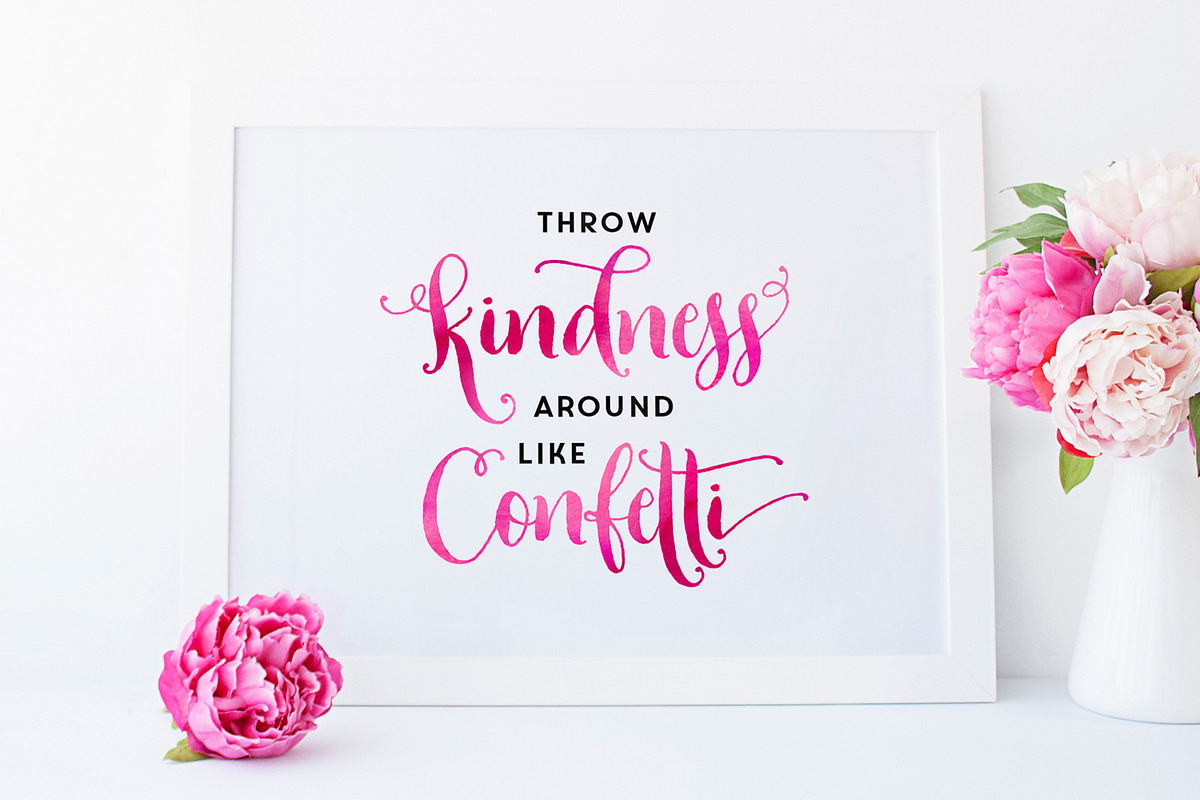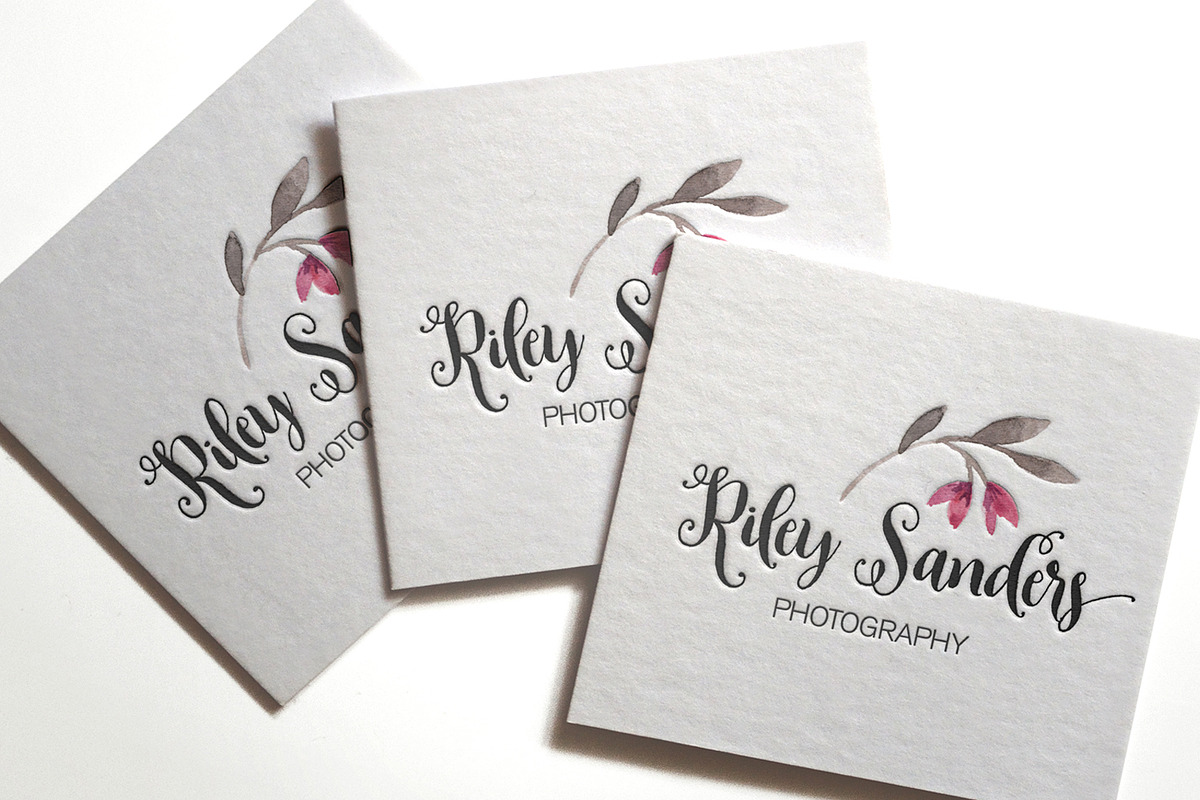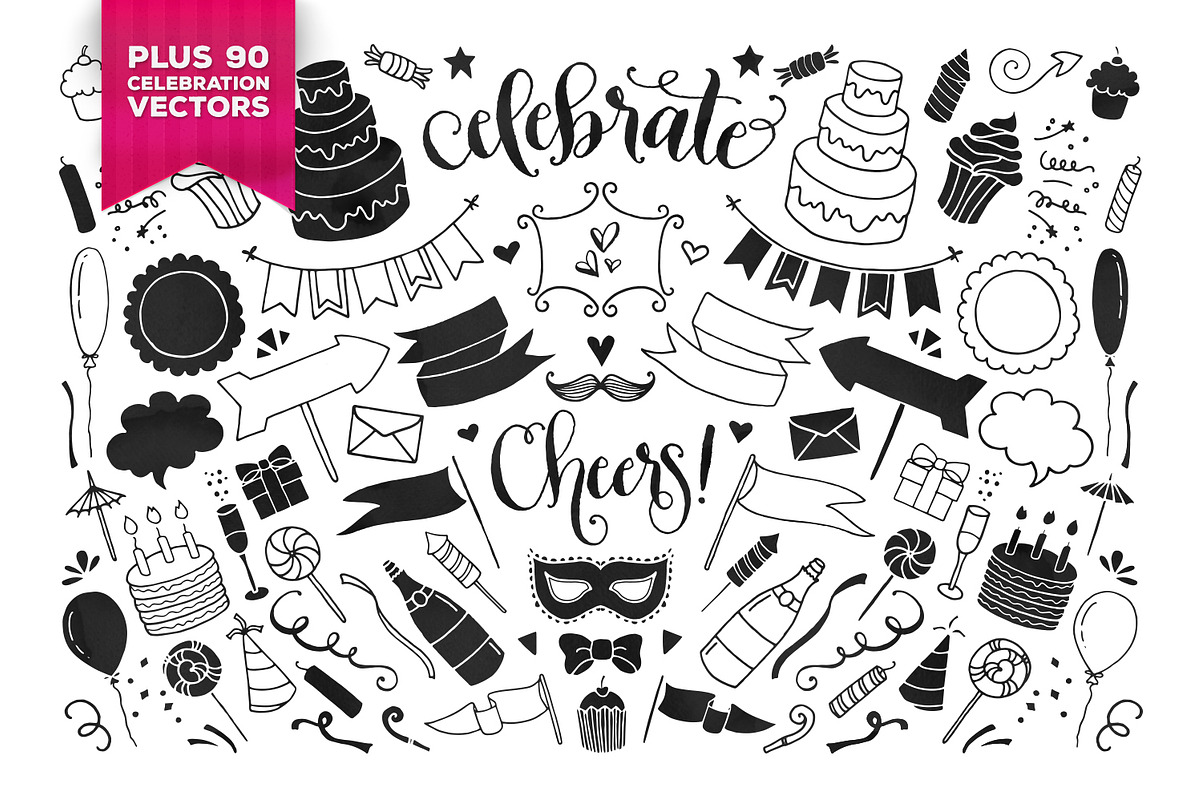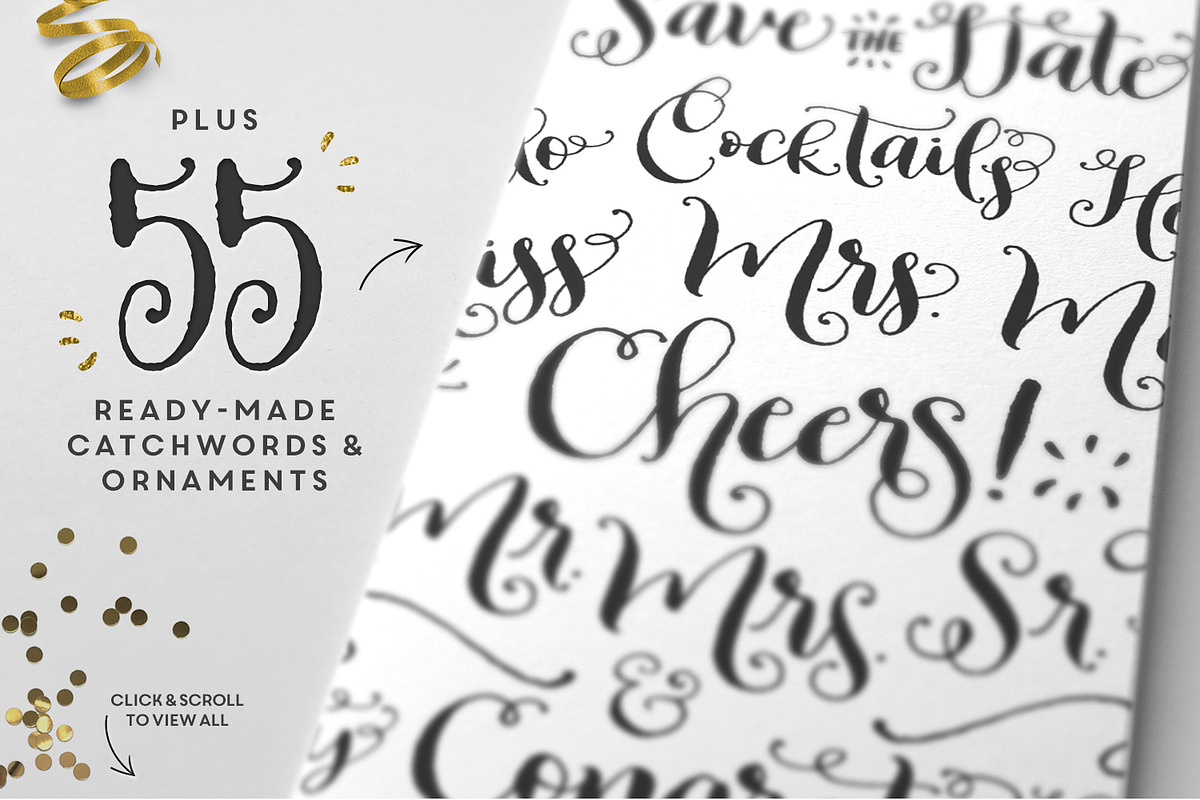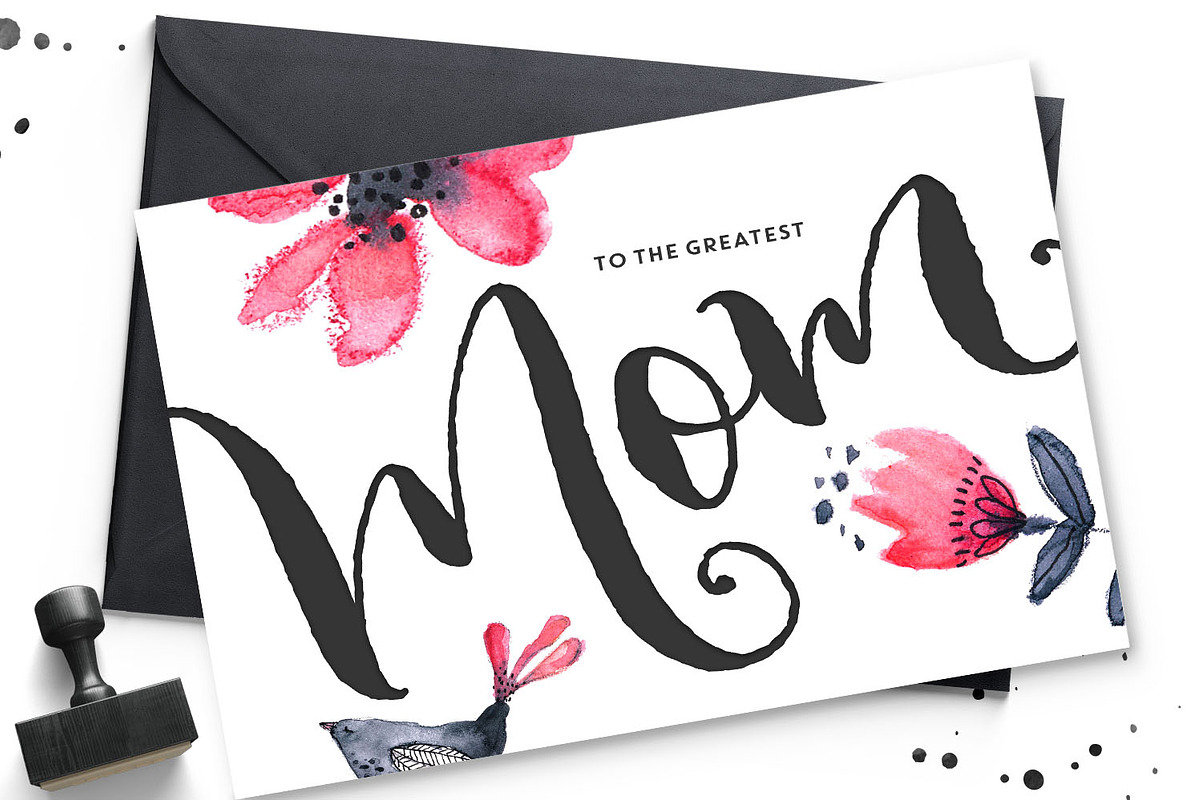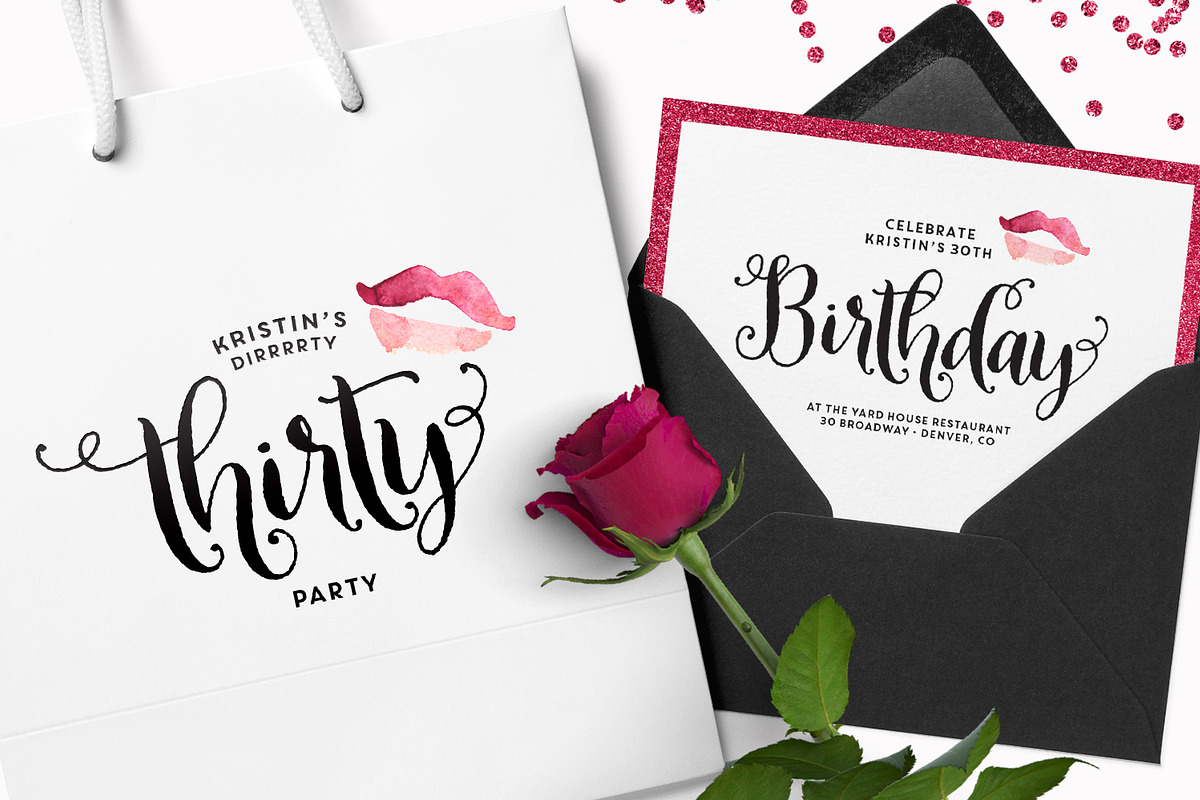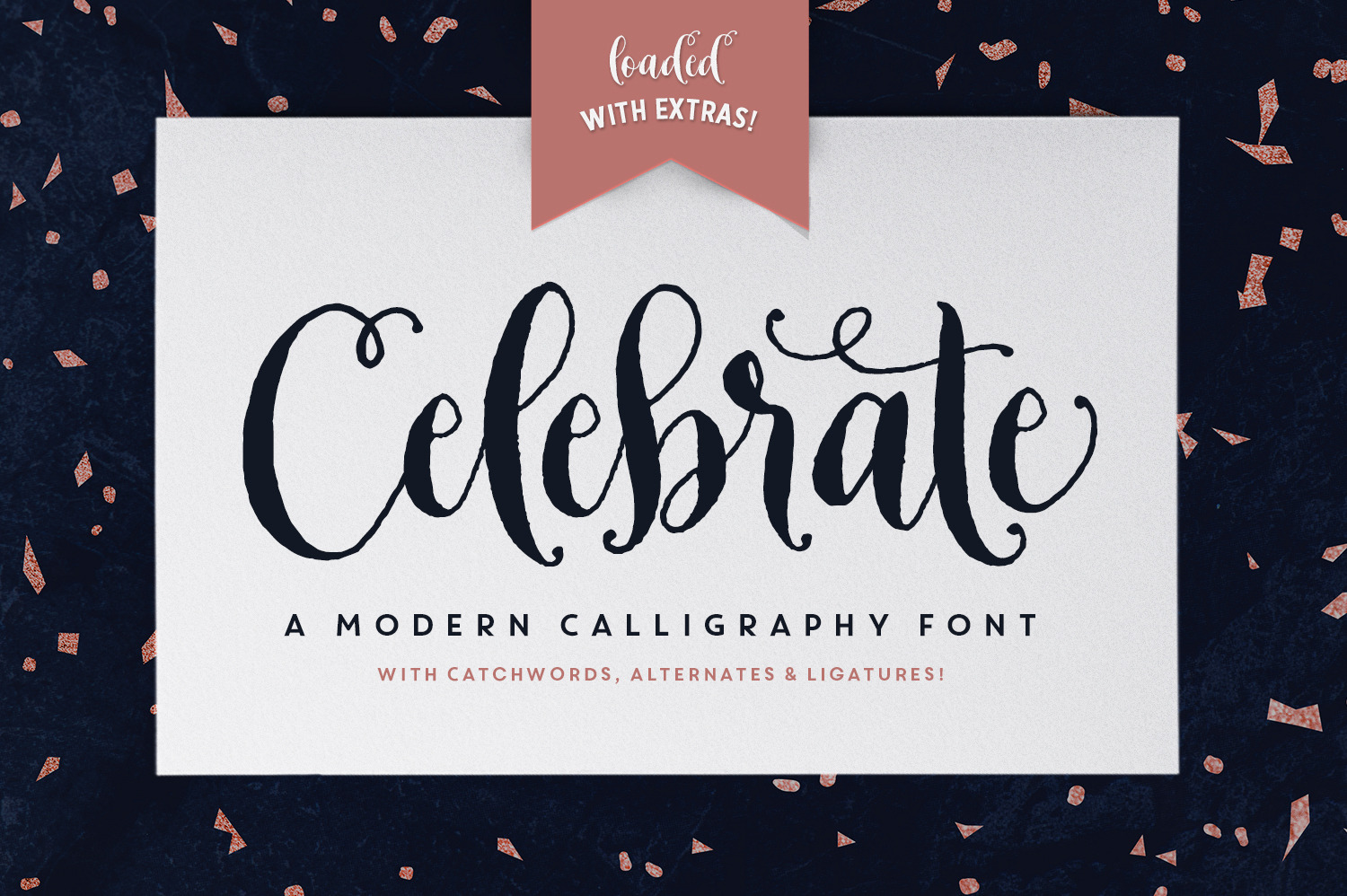
Celebrate Font & Graphics Pack
Meet Celebrate! A bouncy, fun modern calligraphy font with TONS of celebration catchwords, alternates and a sweet graphic bonus!
Celebrate was designed with celebrations in mind, so I've done the heavy-lifting for you with 40 ready-made party catchwords, perfect for weddings, invites and greeting cards! PLUS, a pack of hand-drawn celebration graphics. But don't think you're limited to party invites! Cheers looks gorgeous on logos, websites, stamps, quote posters, greeting cards and more!
- 90 Hand Drawn Celebration Vectors